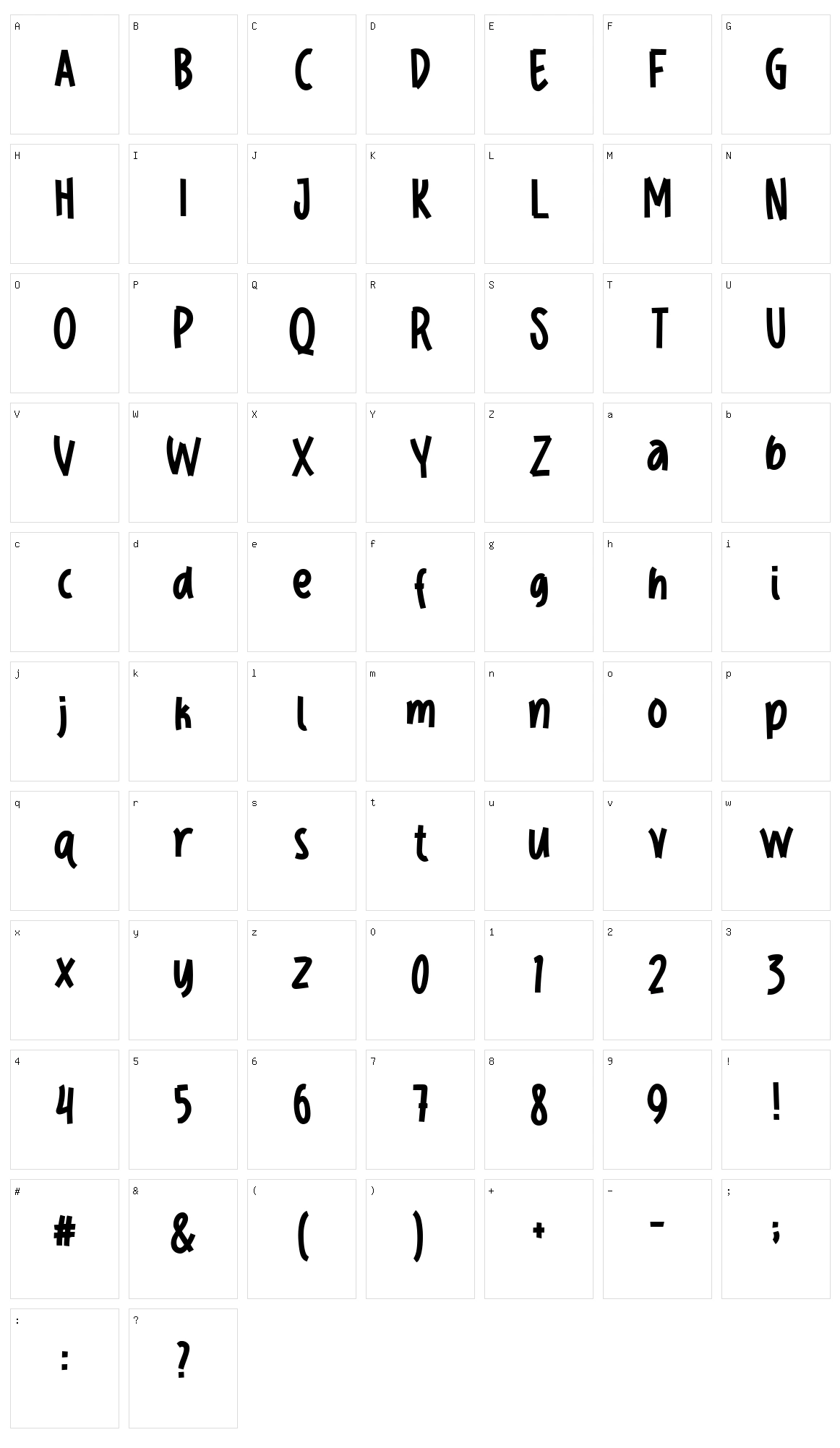
The free font Hancoke is carefully designed by Creatype Studio, showcasing a thoughtful balance of creativity and usability and falls under the Cartoon font style. When you download the ZIP file, it contains only 32.08 KB of font files, making it lightweight and quick to download. Please review the license details below to understand permitted usage and distribution rights. If license information is not available, we recommend using this font for personal projects only or contacting the author directly for commercial usage permissions.